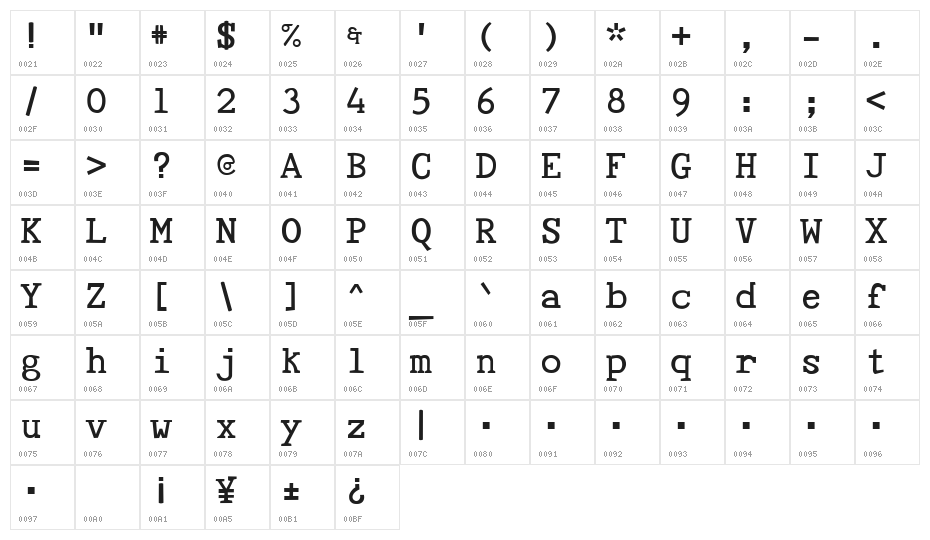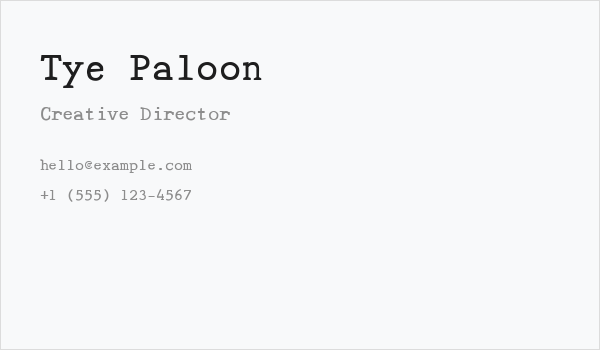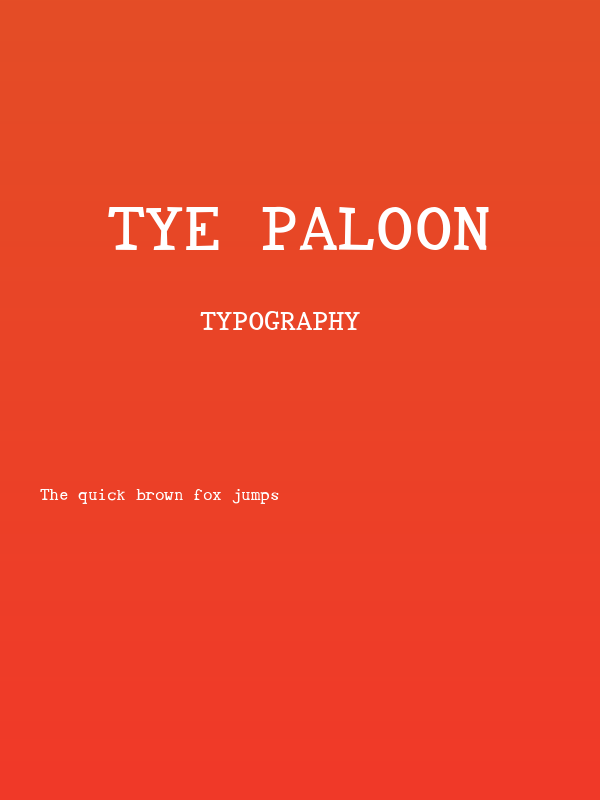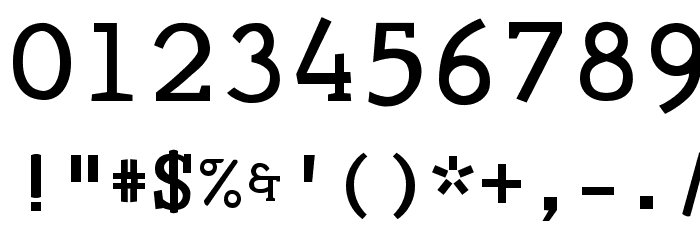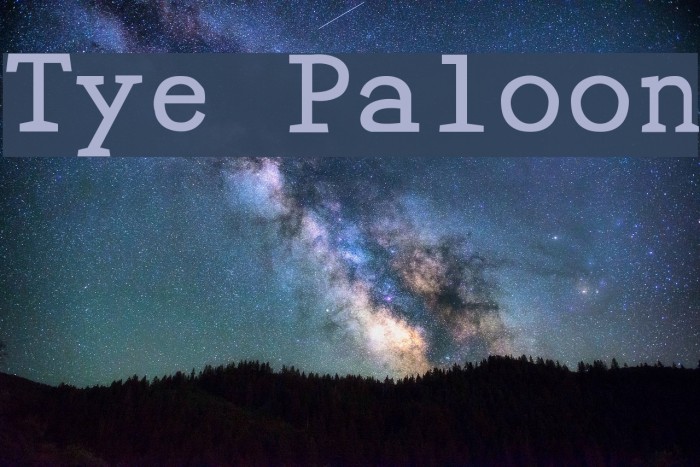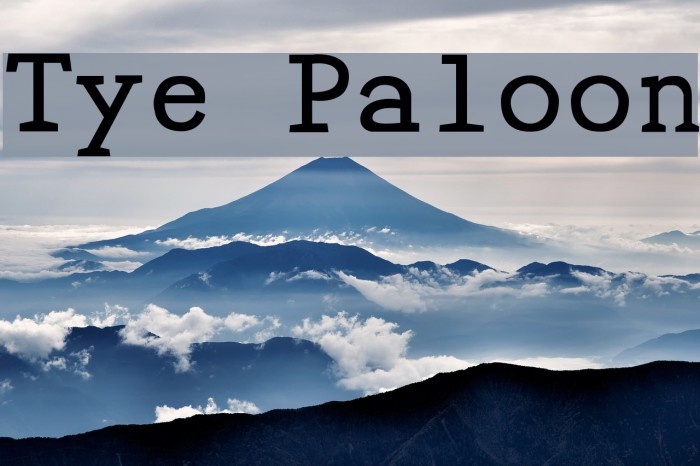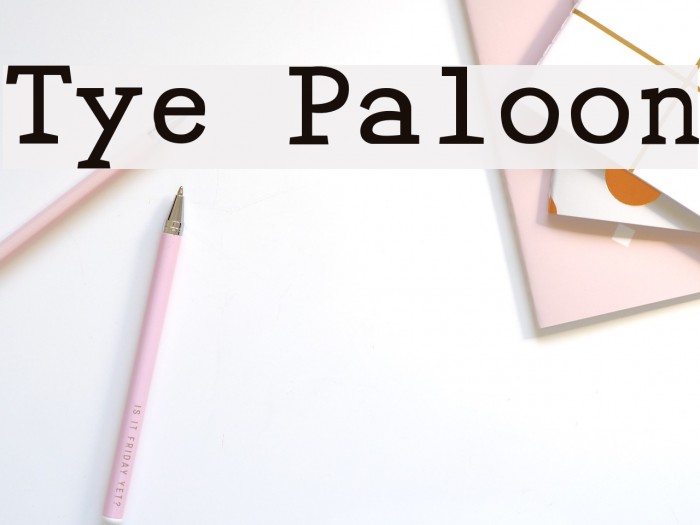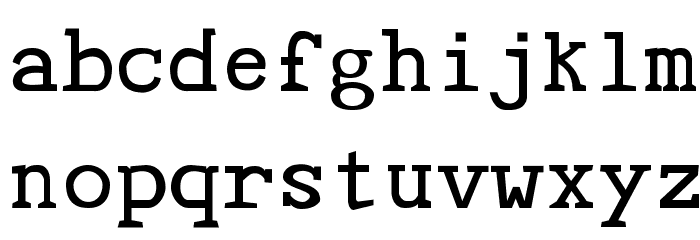
Tye Paloon Font
Tye Paloon Description
This font exhibits a classic slab serif style with bold, strong lines and prominent serifs. The characters are well-defined and maintain a consistent weight throughout, providing a sense of stability and reliability. The uppercase letters are tall and commanding, while the lowercase letters are slightly more compact, offering a balanced contrast. The numerals are clear and easily distinguishable, making them suitable for both display and text purposes. Special characters are included, maintaining the same bold and structured appearance. Overall, this font combines traditional serif elements with a modern touch, making it versatile for various design applications.
| Use Case | Headlines, Logos, Editorial design |
| Proposed Projects | Ideal for branding, headlines, posters, and editorial design. |